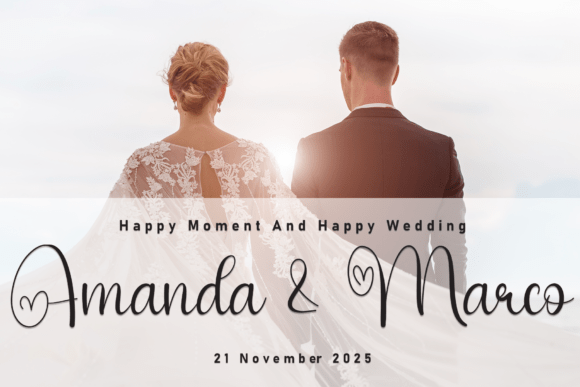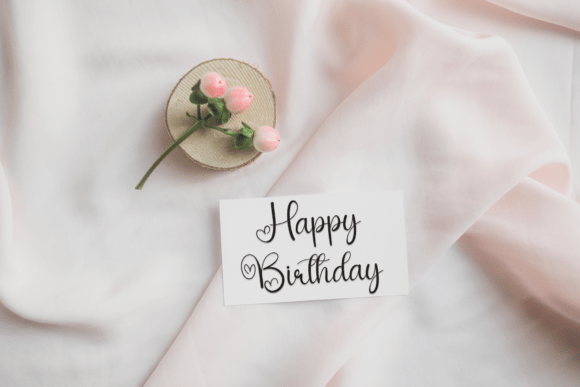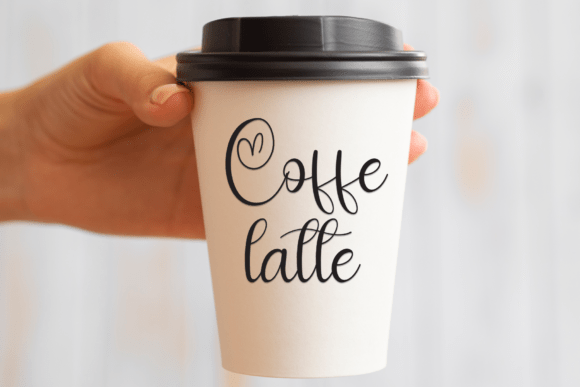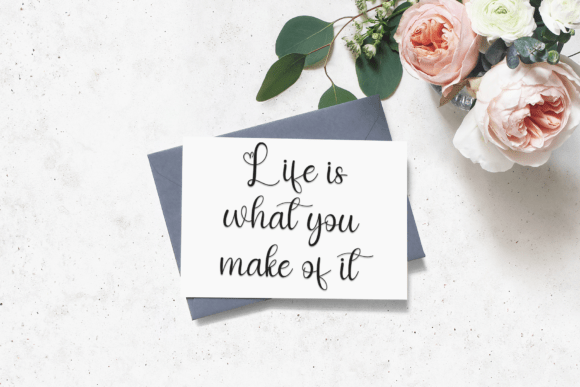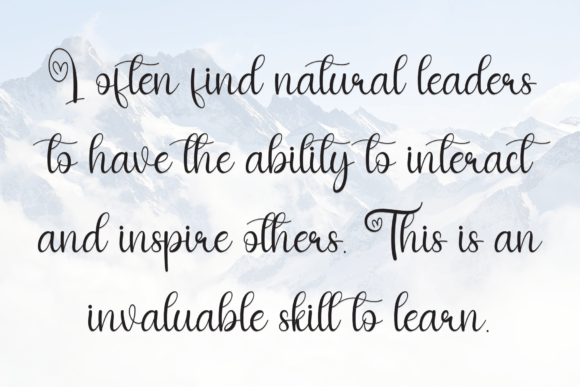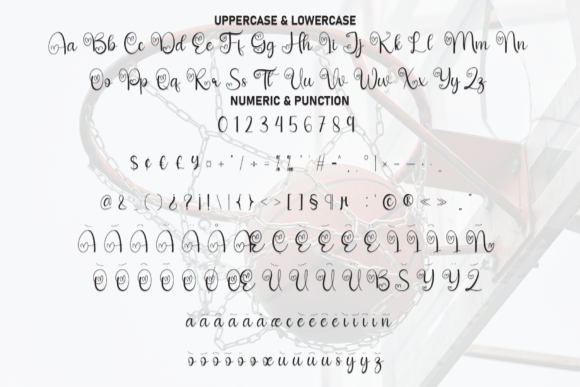
The Perfect Court-Side Companion: A Deep Dive into Basketball Font
I’ll never forget the time I was working on a branding project for a local sports clinic, and my client specifically asked for a font that exuded elegance and freshness. I scoured the internet, trying out font after font, but nothing seemed quite right. That was until I stumbled upon Basketball Font – a stylish handwritten script font that captured the essence of sophistication and playfulness. In this article, I’ll share my experience with Basketball Font, its features, and how to make the most of it in your designs.
An Honest Review of Basketball Font
So, what makes Basketball Font so special? Let’s dive into the good stuff! 😊
- ✨ Elegant and refined: Basketball Font boasts graceful strokes and flowing curves that add a touch of sophistication to any design.
- ✅ Highly versatile: This font is perfect for invitations, branding, stationery, and more.
- 🌈 Beautiful and creative: Basketball Font brings warmth and personality to your designs, making them stand out from the crowd.
Of course, no font is perfect, and Basketball Font has a few minor quirks:
- 🤔 Limited use in very formal or traditional designs: Basketball Font’s elegant and playful nature might not be the best fit for very formal or traditional designs.
- ⚠️ May require manual kerning: As with any script font, you might need to adjust the kerning to ensure optimal readability.
The Backstory Behind Basketball Font
Although the origins of Basketball Font are shrouded in mystery, it’s clear that the designer aimed to create a font that embodied the perfect blend of elegance and playfulness. The result is a font that feels both fresh and sophisticated, making it perfect for a wide range of design applications.
| What makes Basketball Font unique? | Basketball Font’s unique blend of elegance and playfulness makes it perfect for designs that require a touch of sophistication and freshness. |
| Is Basketball Font suitable for body text? | While Basketball Font is beautiful, it’s best suited for headings and titles. For body text, a more traditional font might be more readable. |